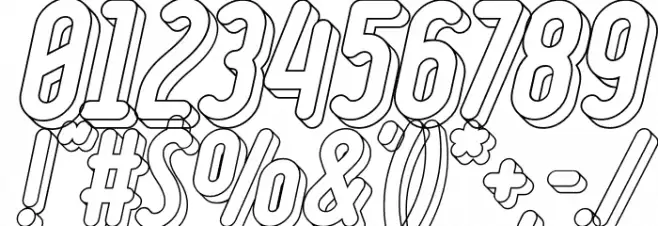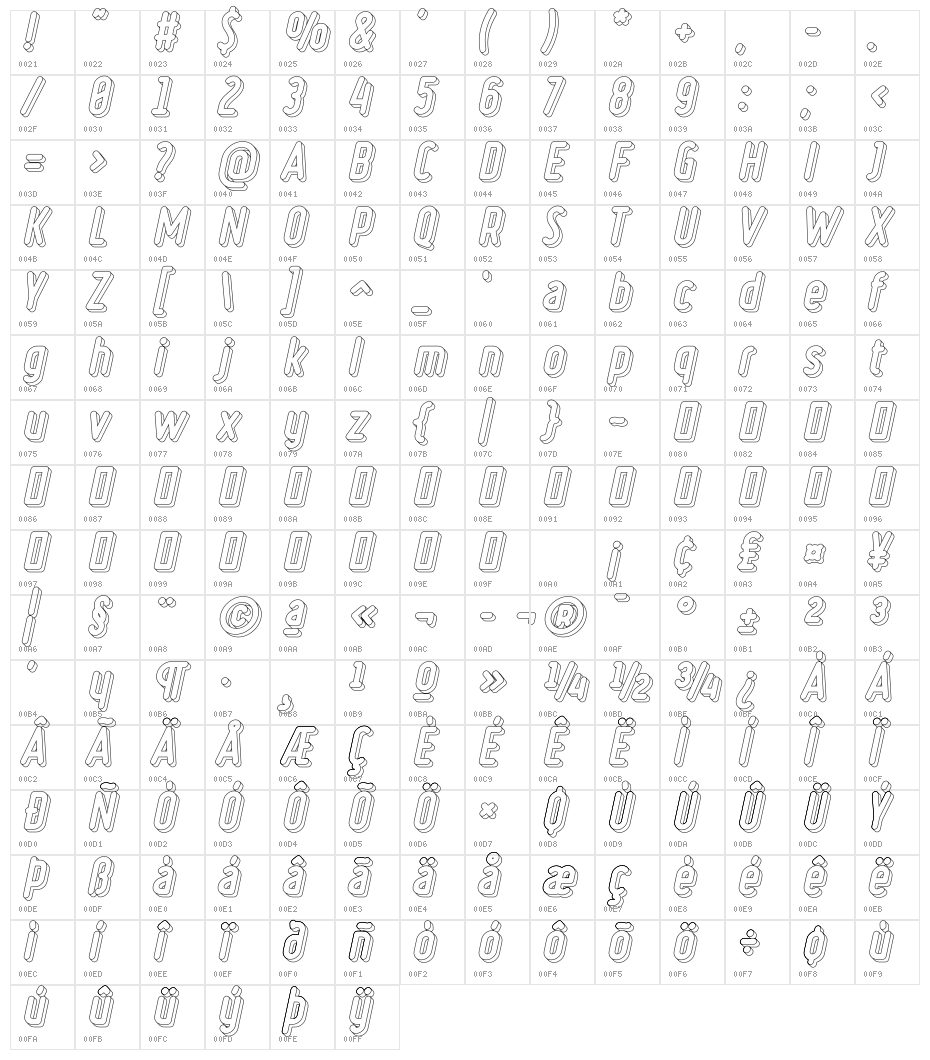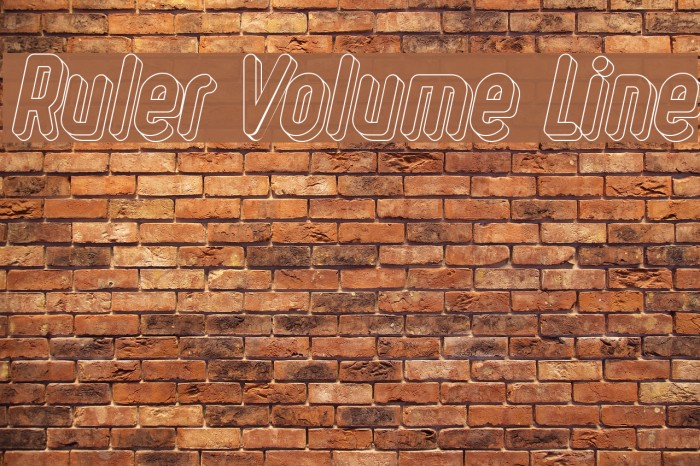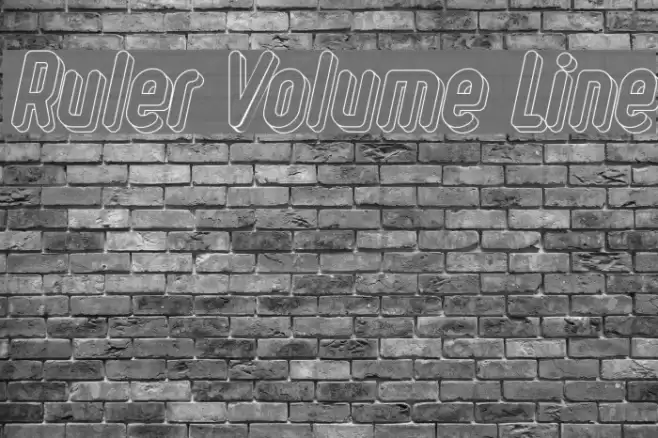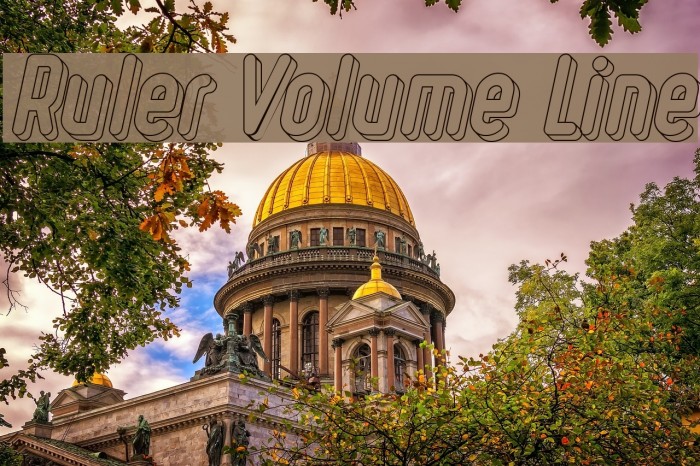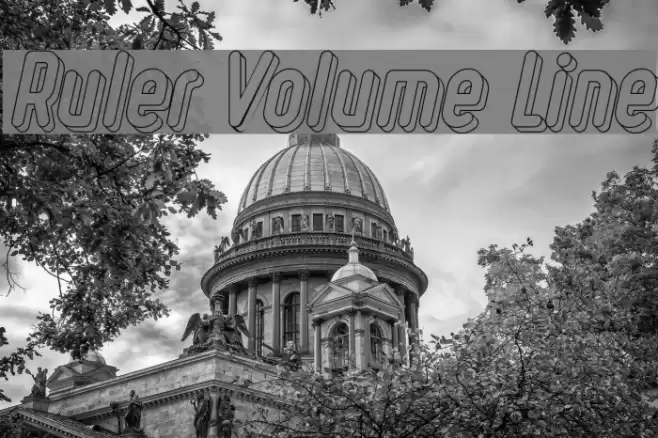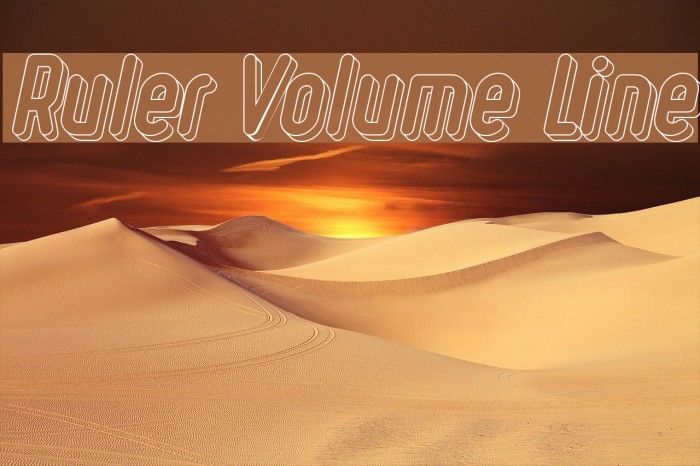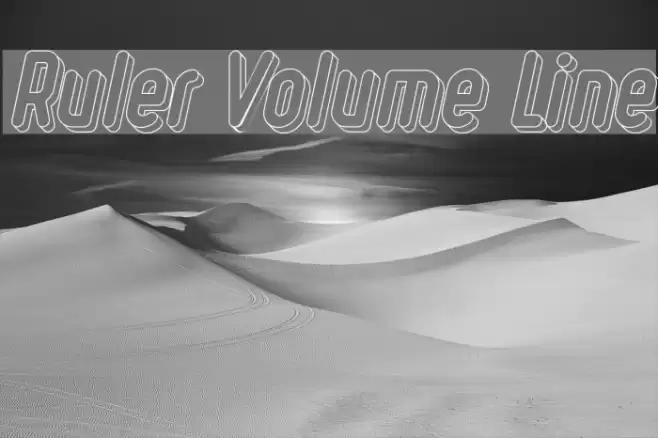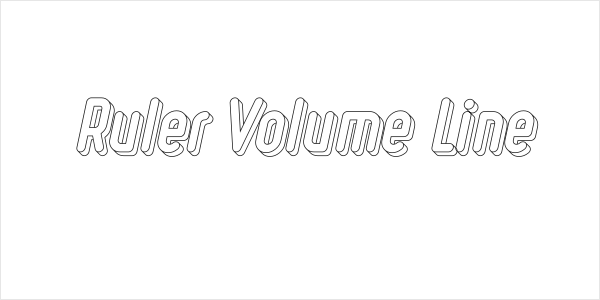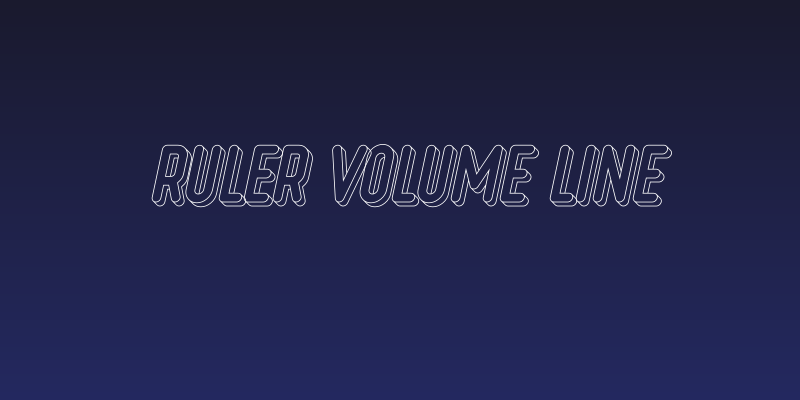
Ruler Volume Line Font
Ruler Volume Line Description
This font features a bold, three-dimensional outline style that gives each character a sense of depth and volume. The letters are uppercase and lowercase, with numerals and a variety of special characters. The design is playful and eye-catching, making it ideal for projects that require a standout display font. The strokes are consistent in width, contributing to a uniform appearance across all characters. The font's unique 3D effect is achieved through overlapping lines that create a shadow-like illusion, enhancing its visual appeal.
| Proposed Projects | Ideal for posters, headlines, logos, and any design requiring a standout display font. |